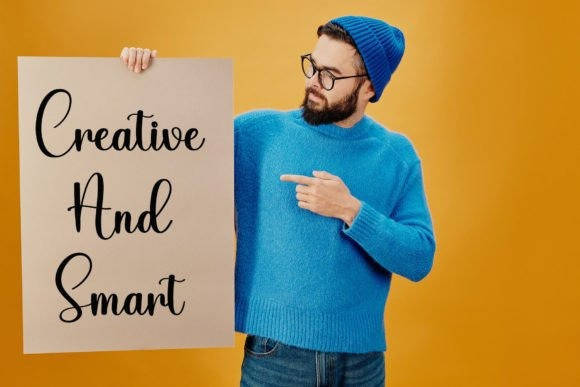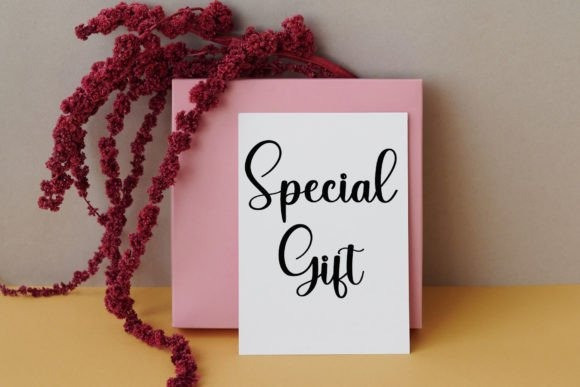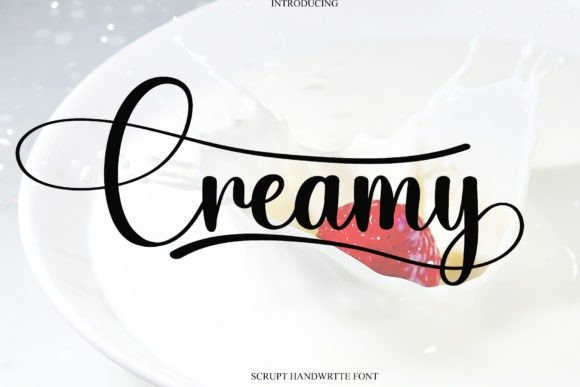
Creamy Script Font
Creamy Script Font is a sweet and beautiful handwritten font. Featuring characters that dance along the baseline, this font will add a luxury spark to any design project you wish to create!